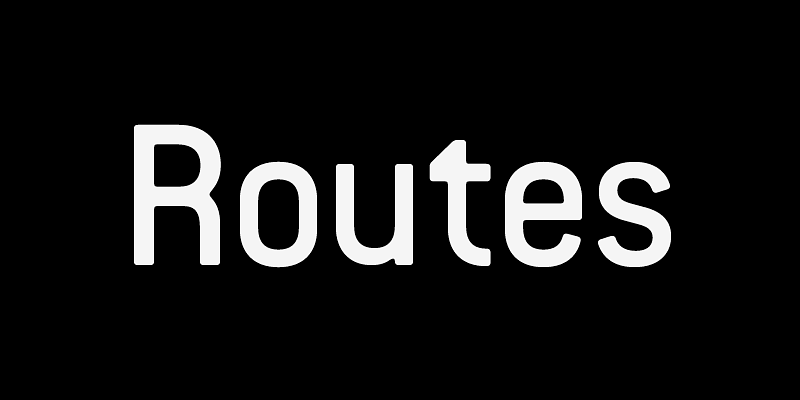
Zedou Font is perfect for modern branding, creative agencies, artistic projects, contemporary logos, experimental design, digital art, and innovative packaging solutions. This distinctive typeface brings a fresh perspective to contemporary typography.
Zedou Font is exciting because it pushes the boundaries of conventional letterform design with its unique character shapes and experimental approach to typography. Its bold personality and distinctive style create memorable visual impact that stands out in today's crowded design landscape.
The Zedou Font family includes multiple stylistic variations and weights, providing designers with diverse options for creative expression. This comprehensive collection enables dynamic typographic solutions for projects requiring visual distinction and creative flair.
Zedou Font Free Download offers designers access to an innovative typeface that challenges traditional typography conventions while maintaining practical functionality. This cutting-edge font features unconventional letterforms and creative character designs that capture attention and spark curiosity. The typeface combines artistic expression with technical precision, resulting in a unique design tool that enables fresh creative possibilities. Its distinctive aesthetic makes it ideal for brands and projects seeking to establish a forward-thinking and innovative visual identity. Zedou Font delivers exceptional versatility for experimental design applications while ensuring readability and professional performance. The font's creative energy and distinctive character make it an excellent choice for designers who want to break away from conventional typography and create truly memorable visual communications that resonate with contemporary audiences.